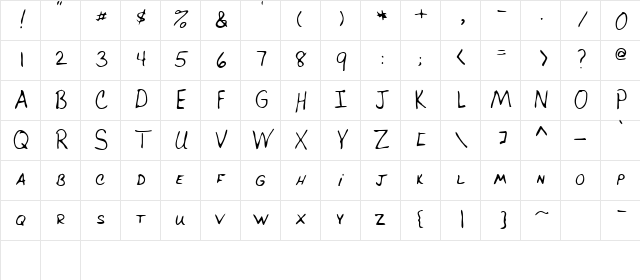
Ulster Regular Free Font
Ulster Regular
Ulster Family
Design Context for Ulster
Ulster is a composed and adaptable typeface that performs quietly and consistently across a wide range of design contexts.